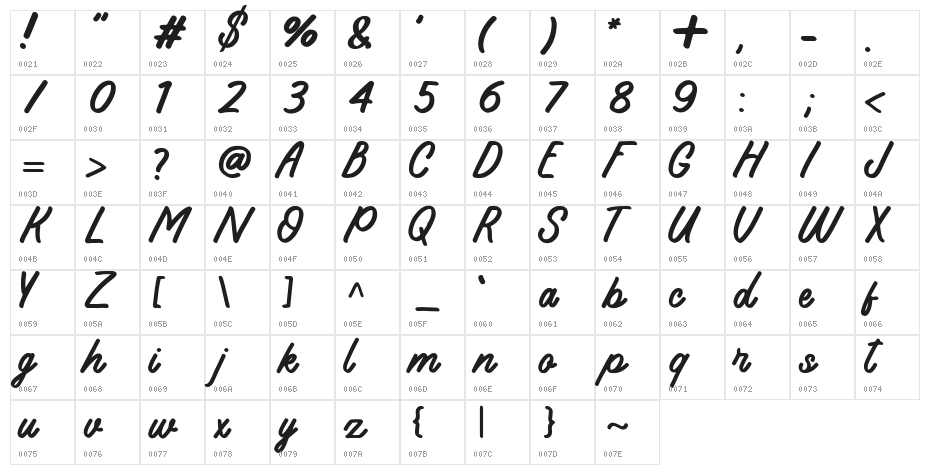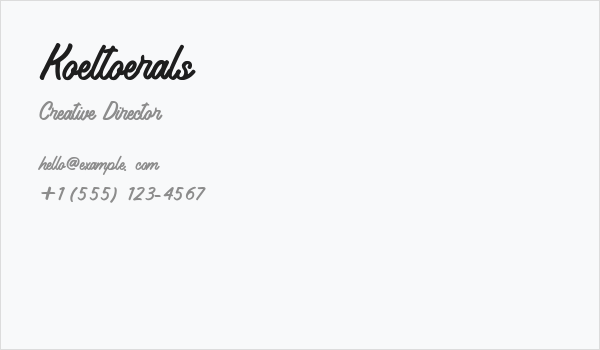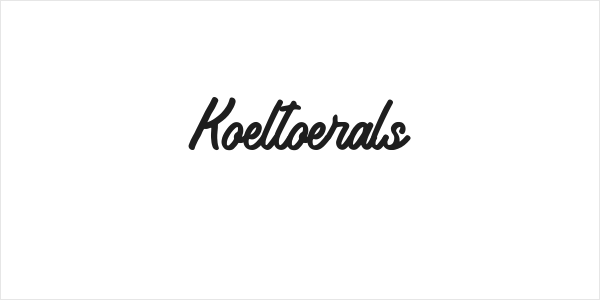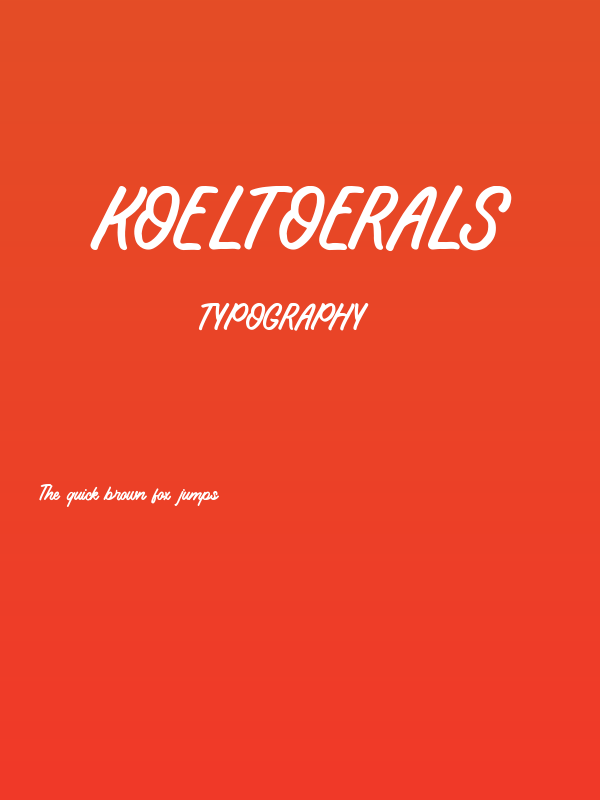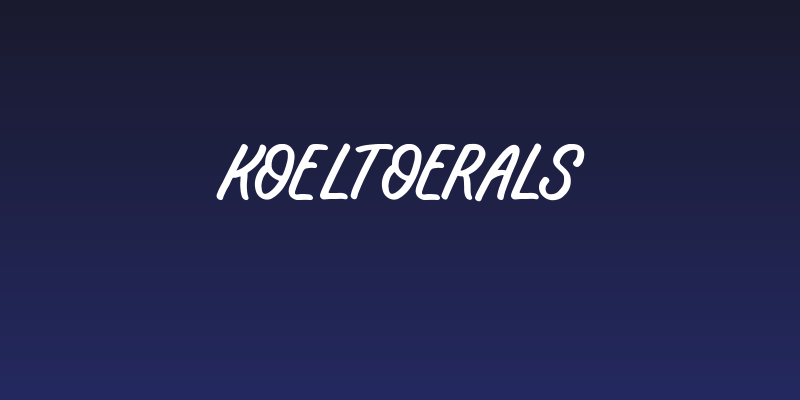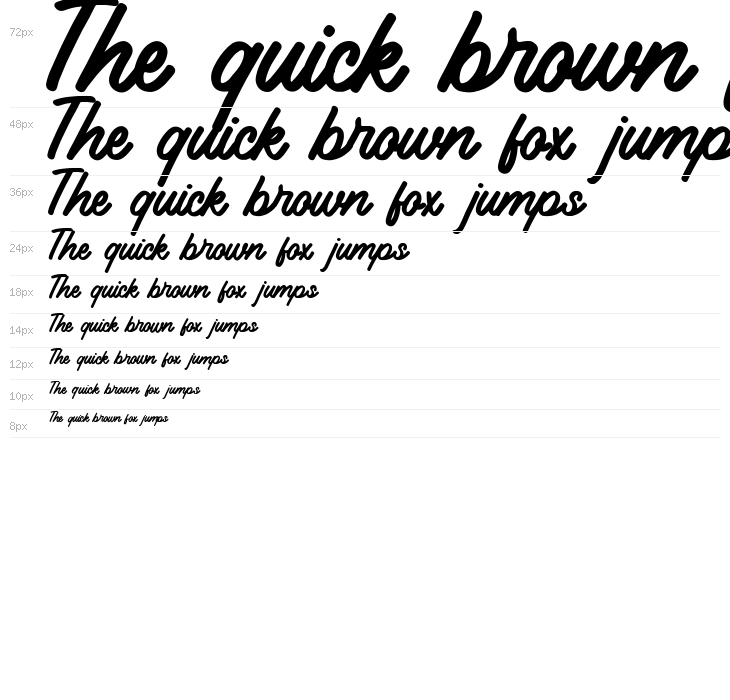
Koeltoerals Font
Koeltoerals Description
This font features a smooth, flowing script style that mimics the elegance of handwritten calligraphy. The letters are connected, creating a seamless and fluid appearance that is both stylish and legible. The uppercase letters maintain a consistent height, while the lowercase letters exhibit a slight slant, enhancing the cursive effect. The numerals are clear and easy to read, complementing the overall aesthetic. Special characters are designed to match the script's fluidity, ensuring a cohesive look across all text elements. This font exudes a sense of sophistication and creativity, making it ideal for projects that require a personal touch.
| Overall Style | Elegant, Handwritten |
| Use Case | Headlines, Invitations, Logos |